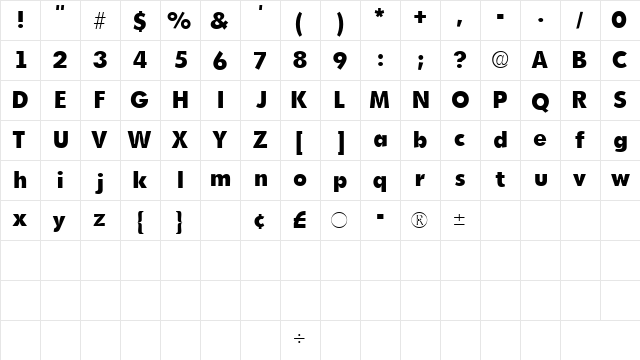
AdmisiSSK Regular
Design Context for AdmisiSSK Typeface
AdmisiSSK offers clean, dependable letterforms without strong stylistic allegiance, making it a practical choice for designers who need flexibility.